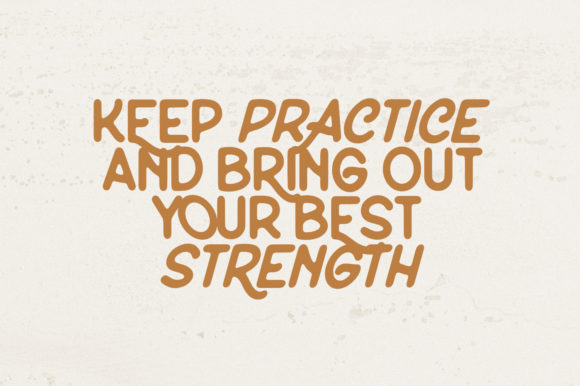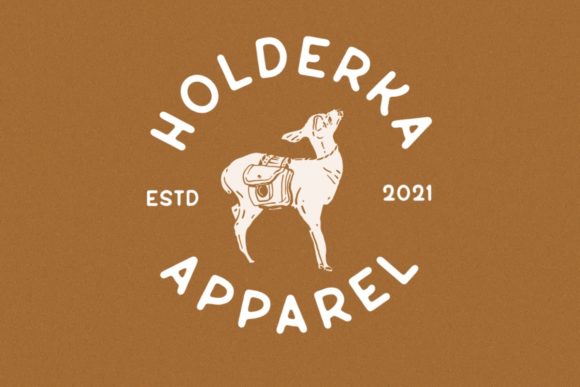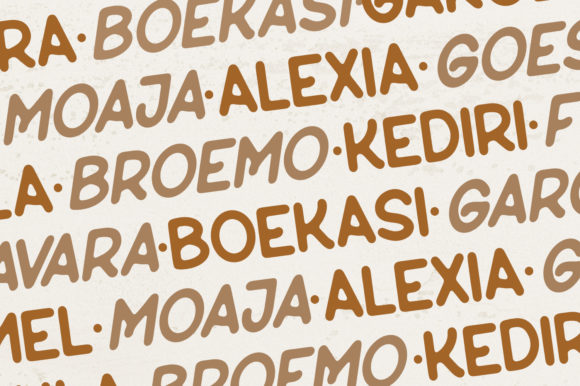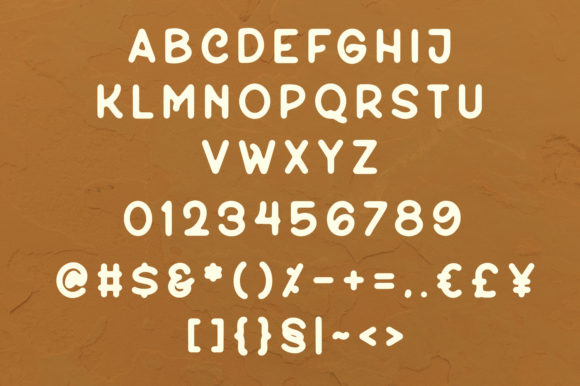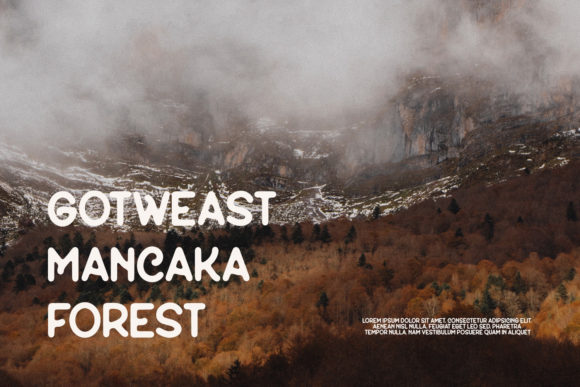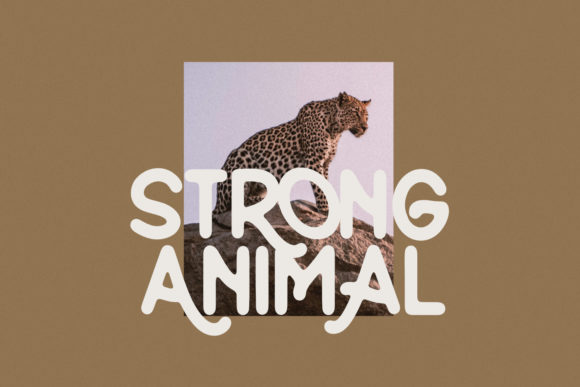
Introduction to Macane Font Font
Fonts play a crucial role in design, and the Macane Font font is a typeface that brings both character and versatility to any project. Whether you’re working on a branding project, a website, or a print design, the Macane Font font offers a unique style that can elevate your work.
Macane is a cool, vintage styled display font.
It can easily be matched to an incredibly large set of projects, so add it to your creative ideas and notice how it makes them stand out .
Key Features of Macane Font Font
Why Choose Macane Font Font?
The Macane Font font is more than just a typeface – it’s a design tool that helps you communicate your message with style and clarity. Its unique character set and versatile design make it suitable for a wide range of applications, from elegant invitations to bold headlines.
With its carefully crafted letterforms and balanced proportions, the Macane Font font ensures readability and visual appeal across all mediums.
What makes Macane Font font special?
The Macane Font font stands out with its unique design, exceptional readability, and versatility across various design applications.